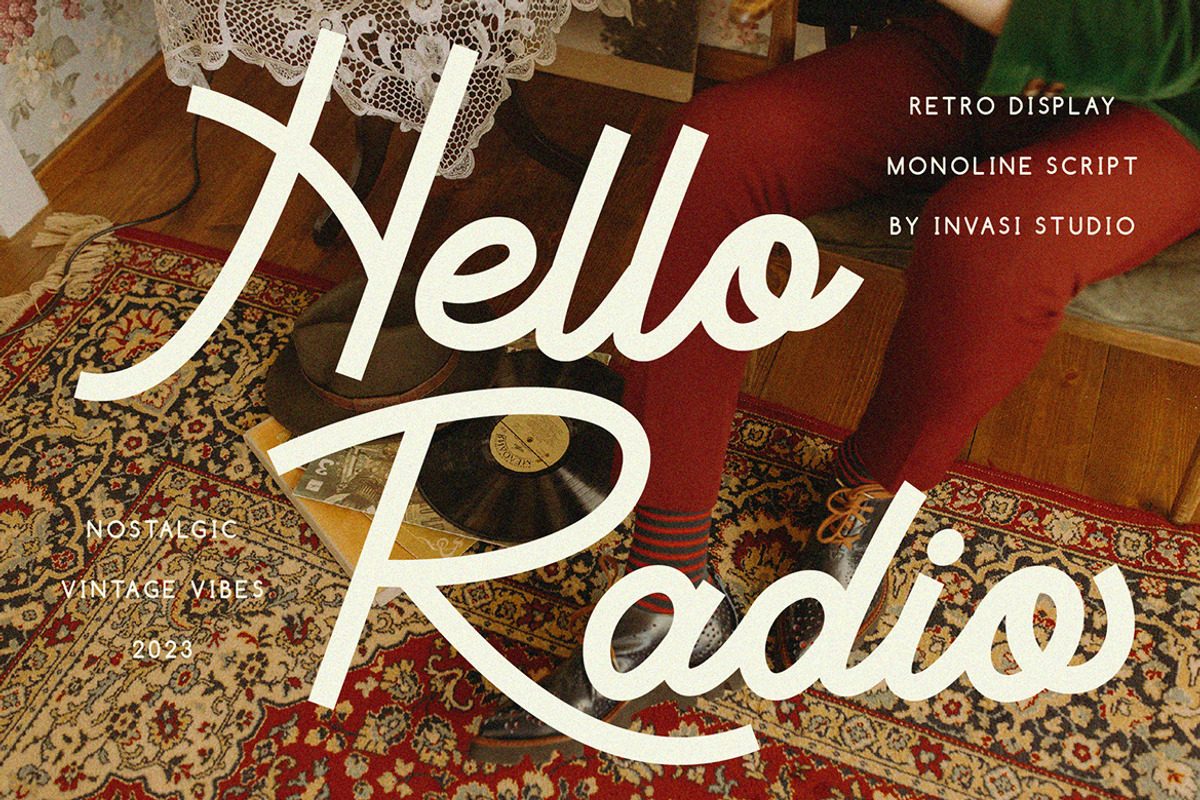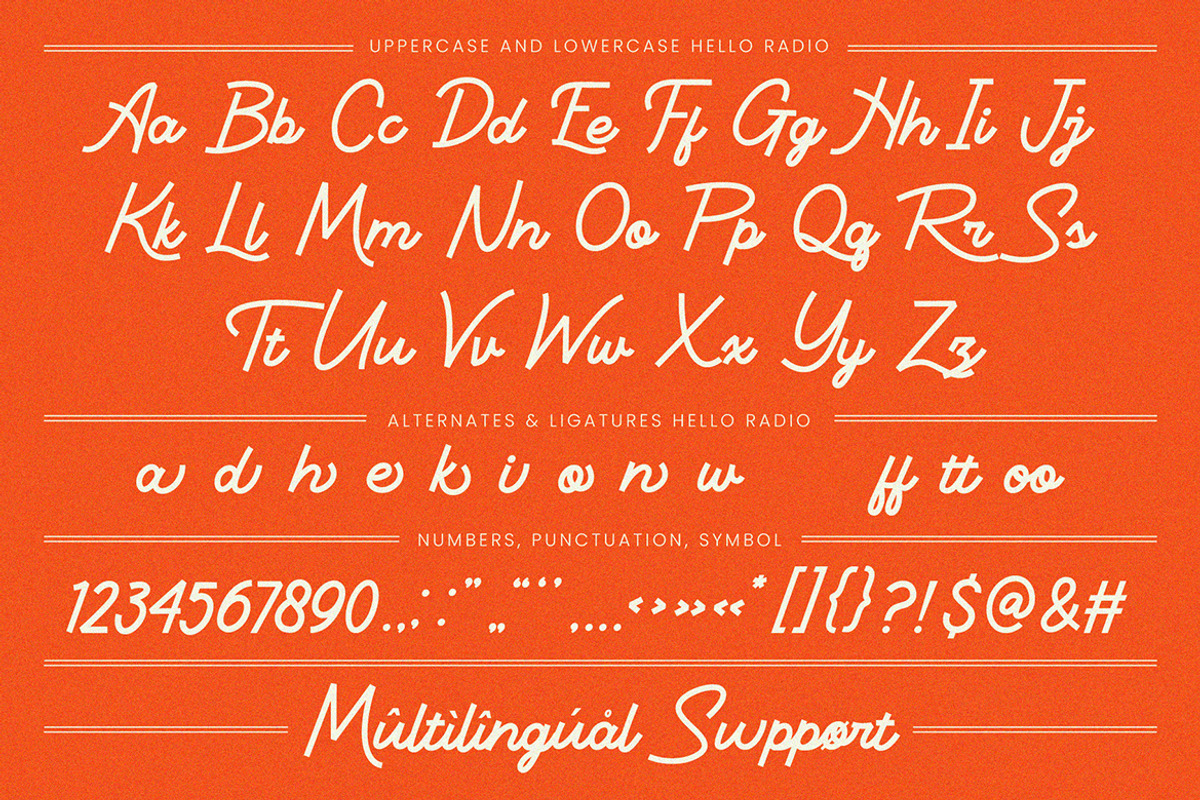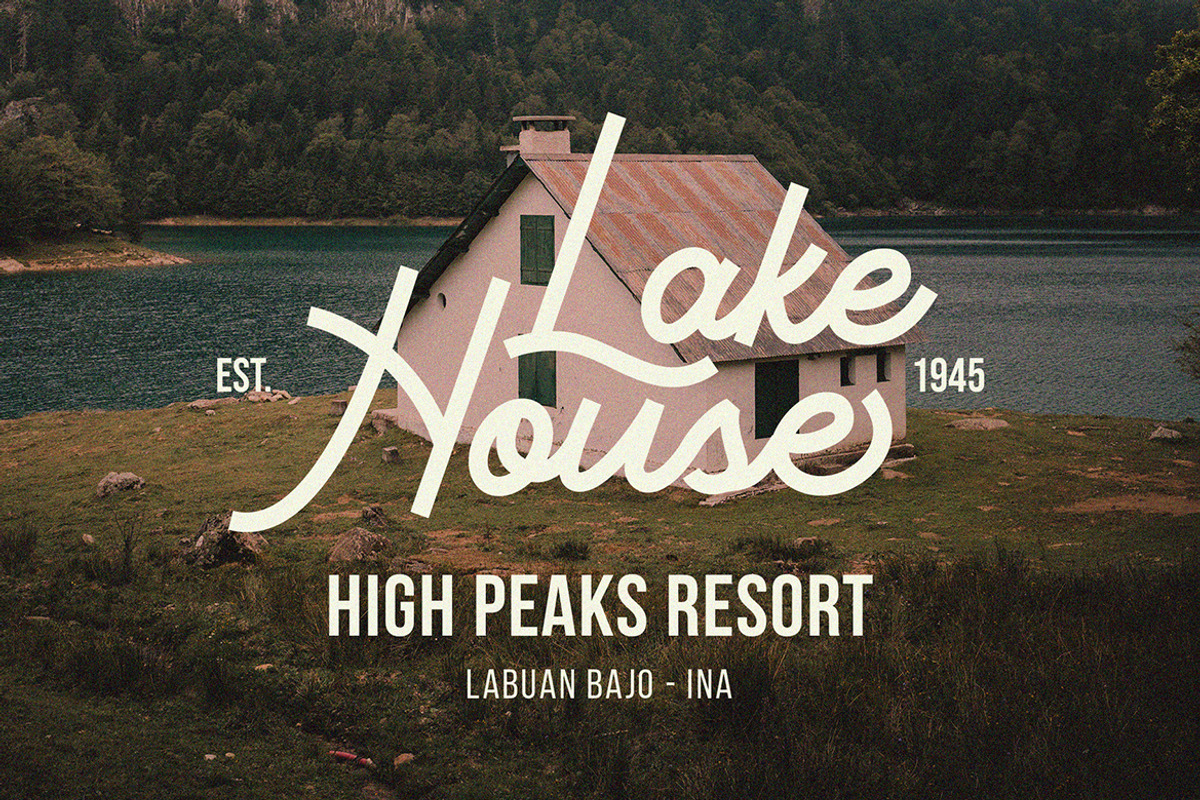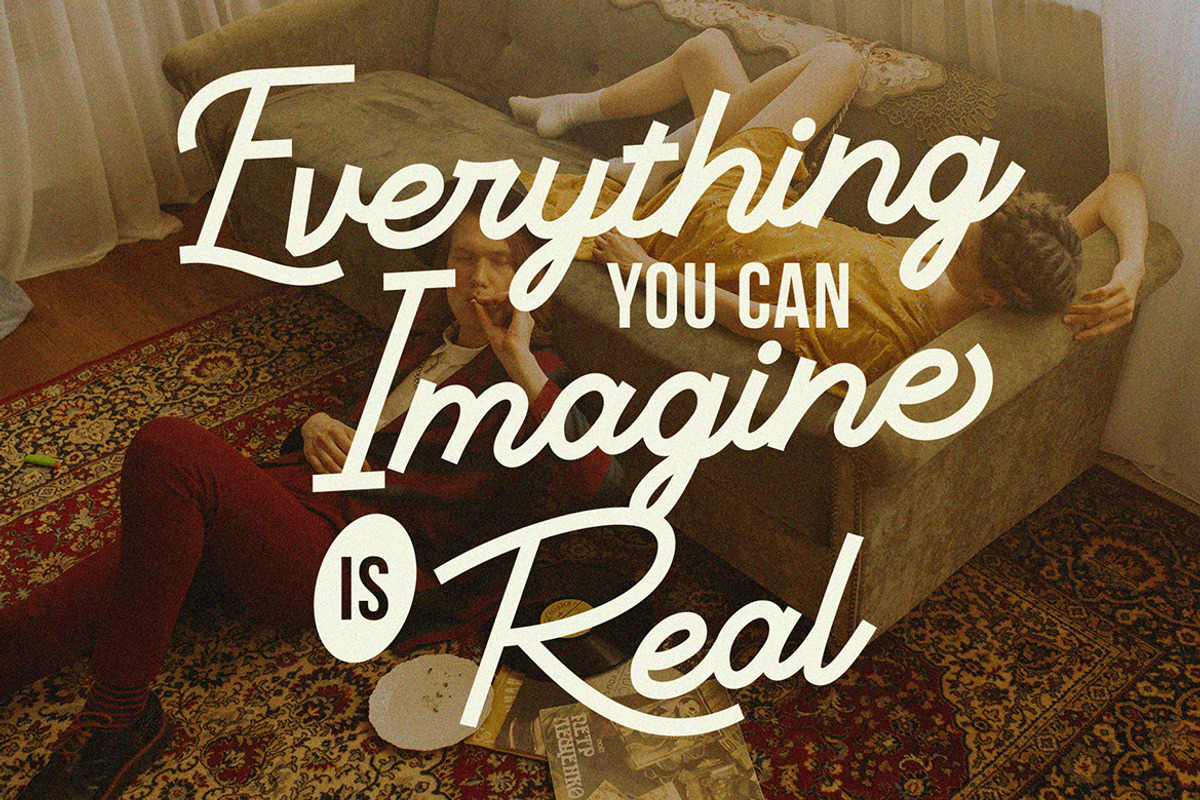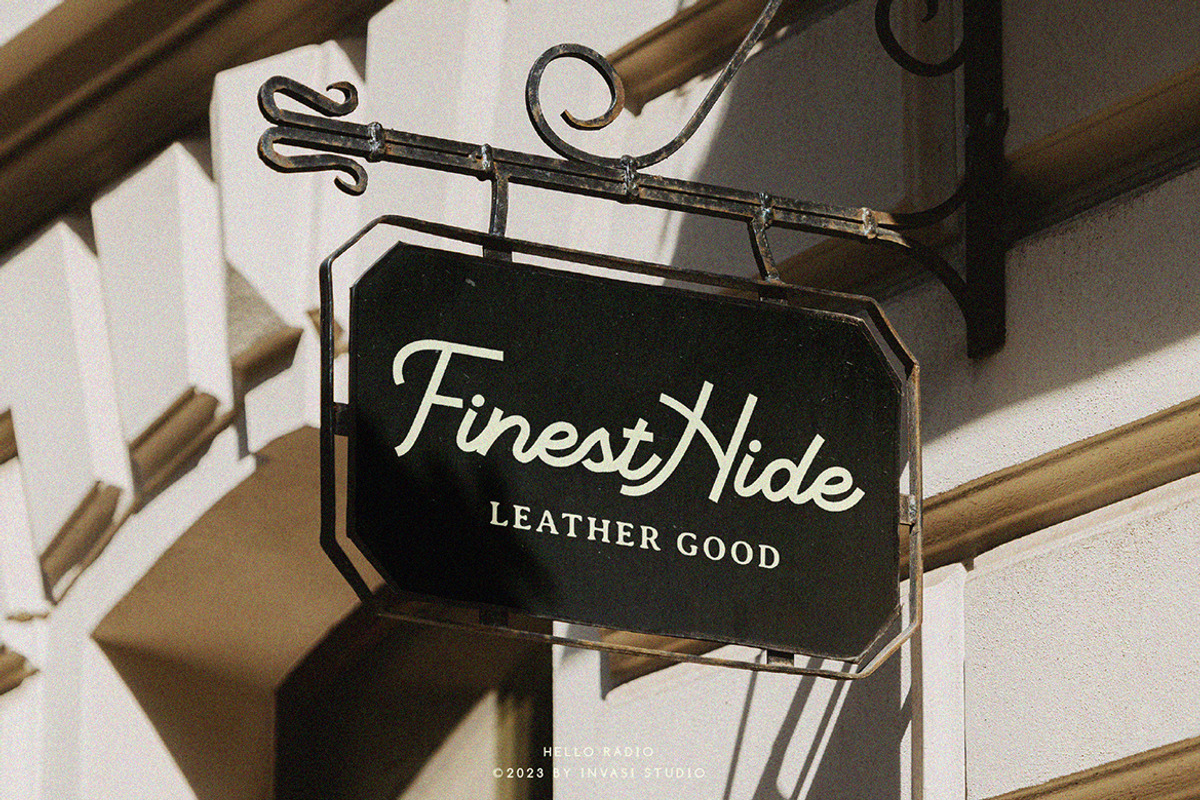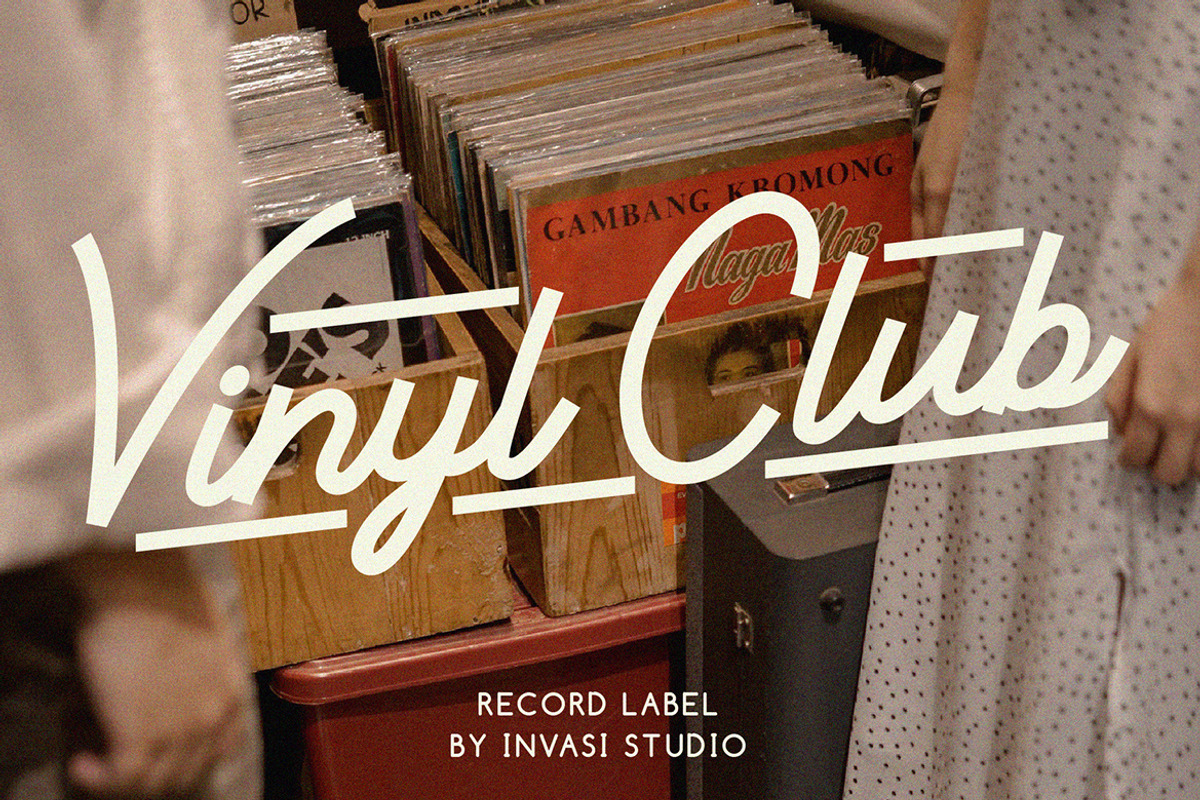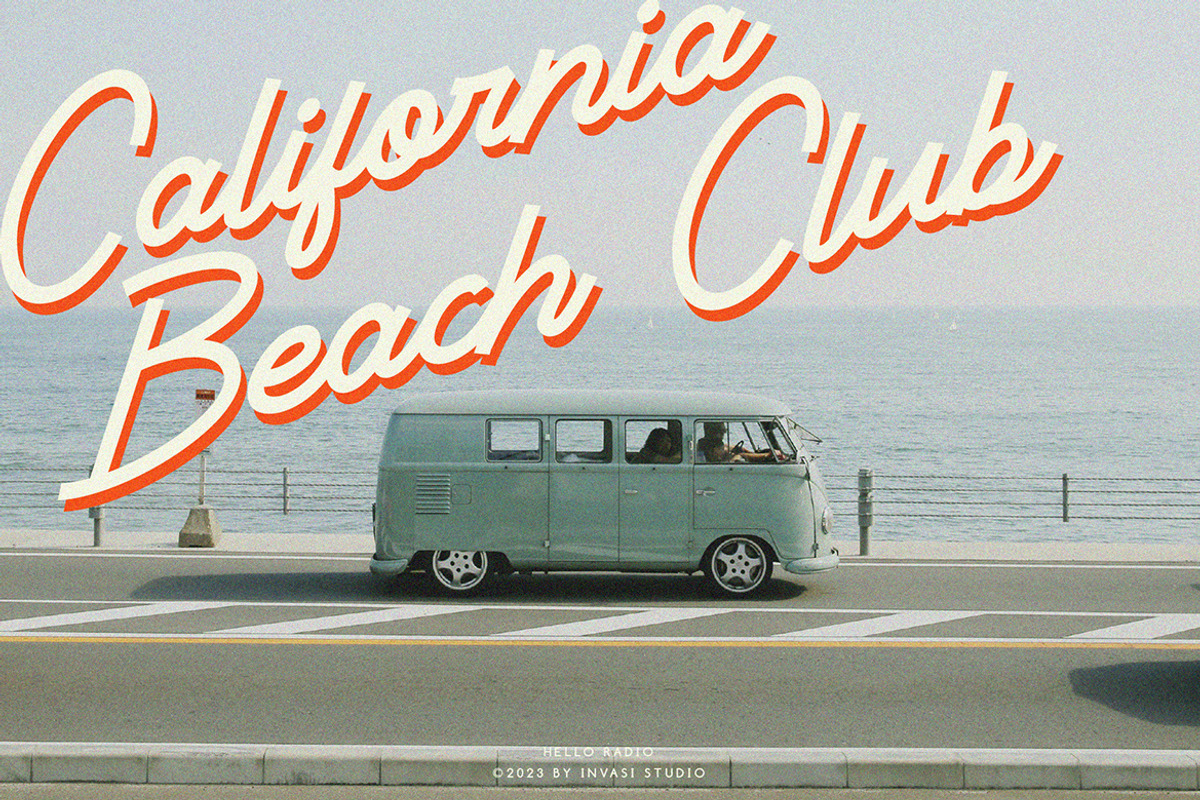
Hello Radio - Vintage Monoline Scrip
Say hello to Hello Radio font, the perfect font to add a touch of vintage charm to your designs! With its monoline stroke script style, this font brings back the good old days with a fun and quirky twist. The best part? It supports multilingual characters, so you can spread the retro vibes in any language you desire.
Every character in Hello Radio font has a delightful imperfect shape, giving your designs a natural and handcrafted feel. It's like having your vintage radio station right at your fingertips! This font is a true team player, cooperating effortlessly with other elements in your design. Whether you're creating traditional-style logos, labels, package designs, or awesome lettering for t-shirts, Hello Radio Font has got you covered.
- Multilanguage Supports 60+ Latin-based languages